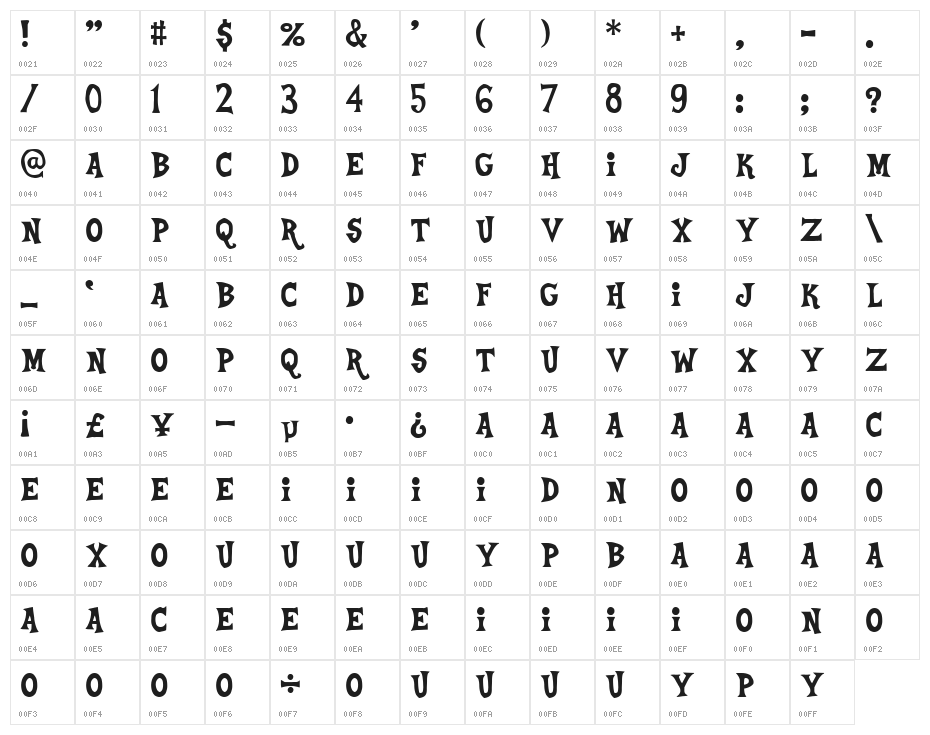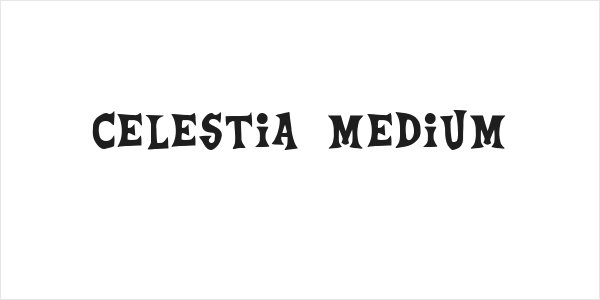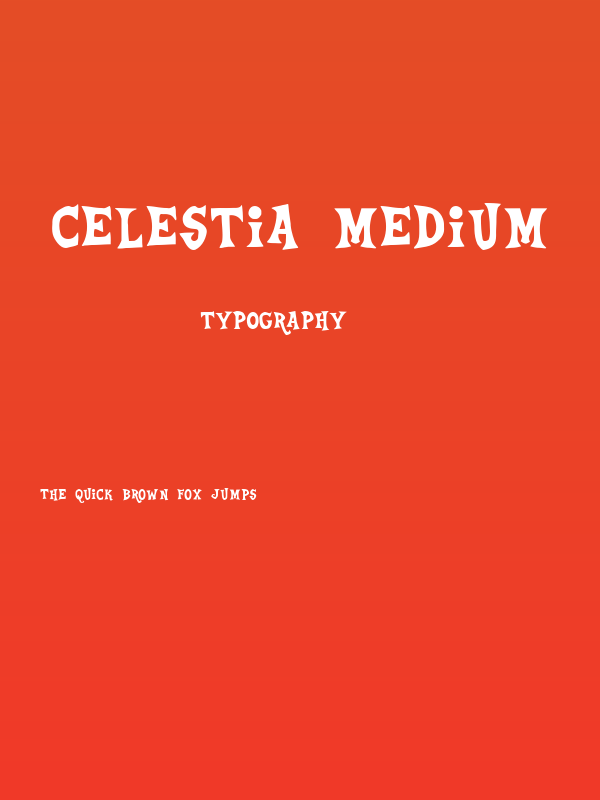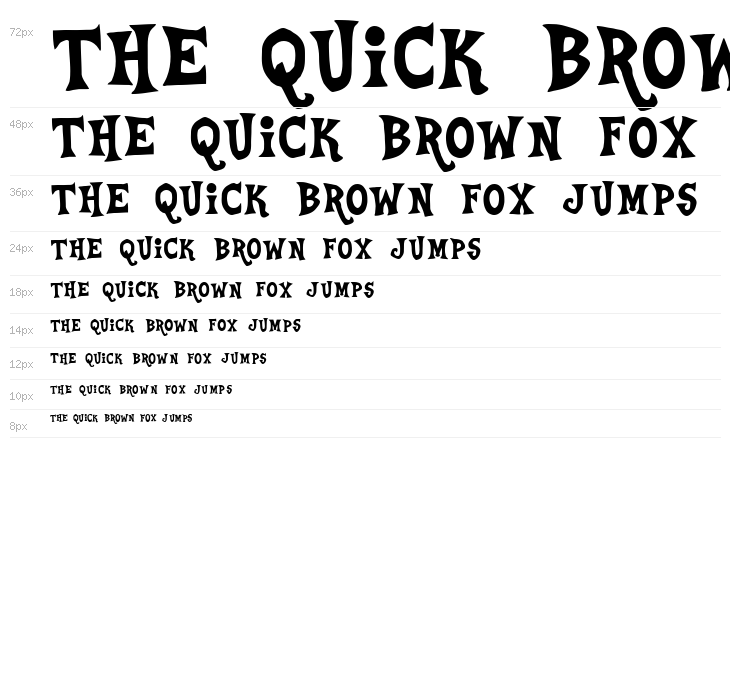
Celestia Medium Font
Celestia Medium Description
This font features a whimsical and playful design, characterized by its unique and irregular shapes. The letters have a bold and dynamic presence, with exaggerated curves and angles that give it a lively and energetic feel. The uppercase and lowercase letters maintain a consistent style, while the numbers and special characters complement the overall aesthetic. The font's distinctiveness makes it suitable for creative and artistic projects, adding a touch of personality and flair. Its boldness ensures readability while maintaining a decorative appeal.
| Proposed Projects | Ideal for children's books, creative posters, playful branding, and artistic invitations. |